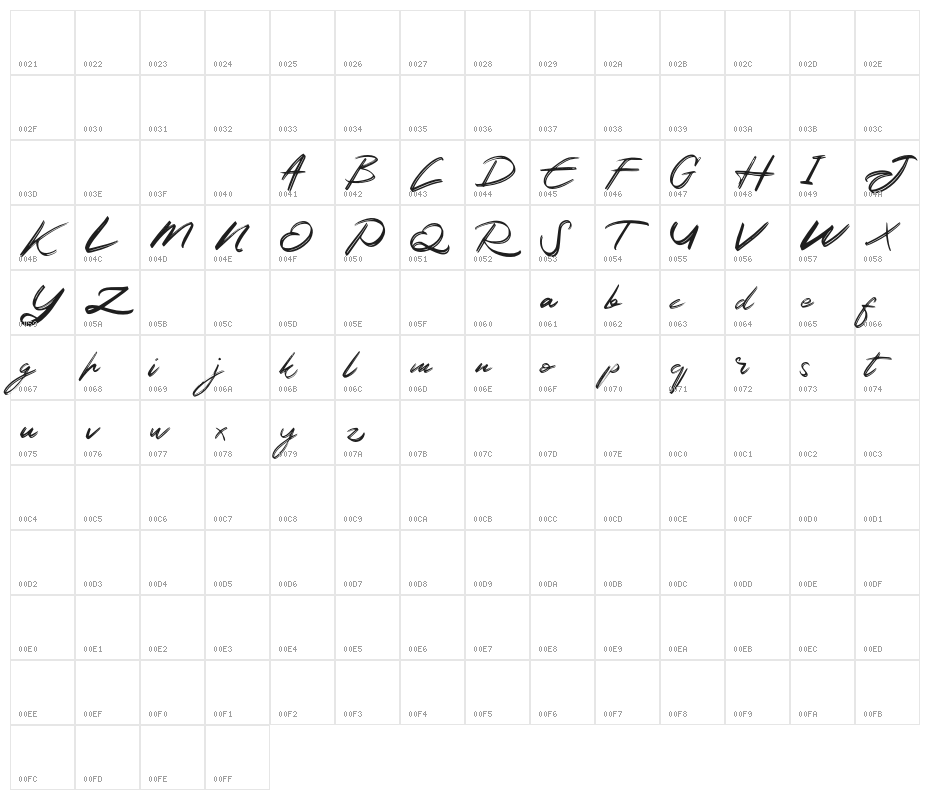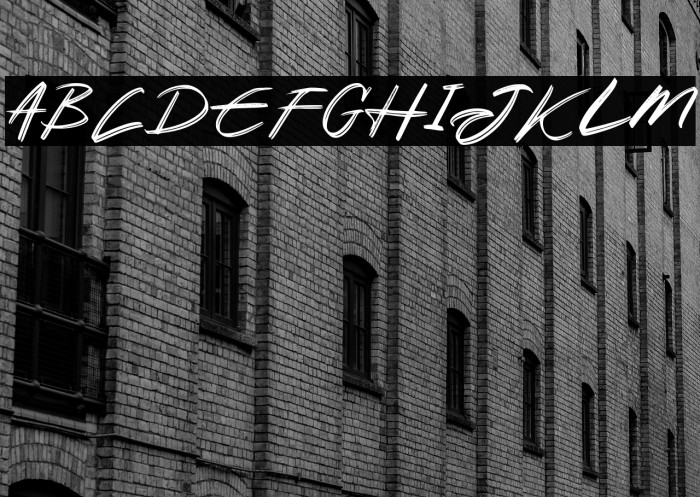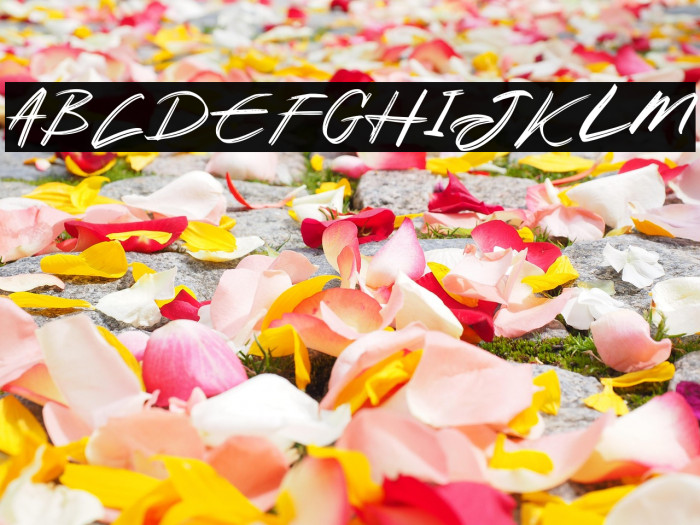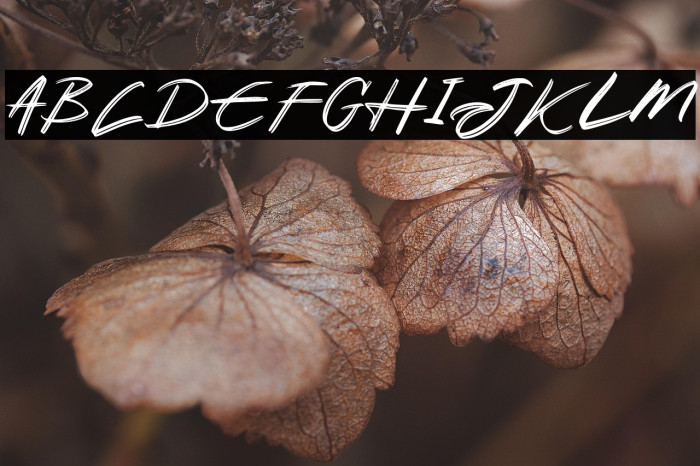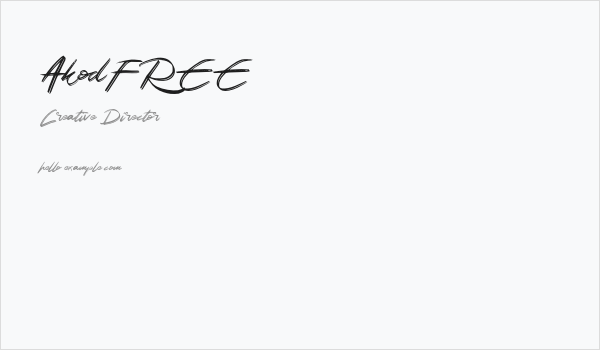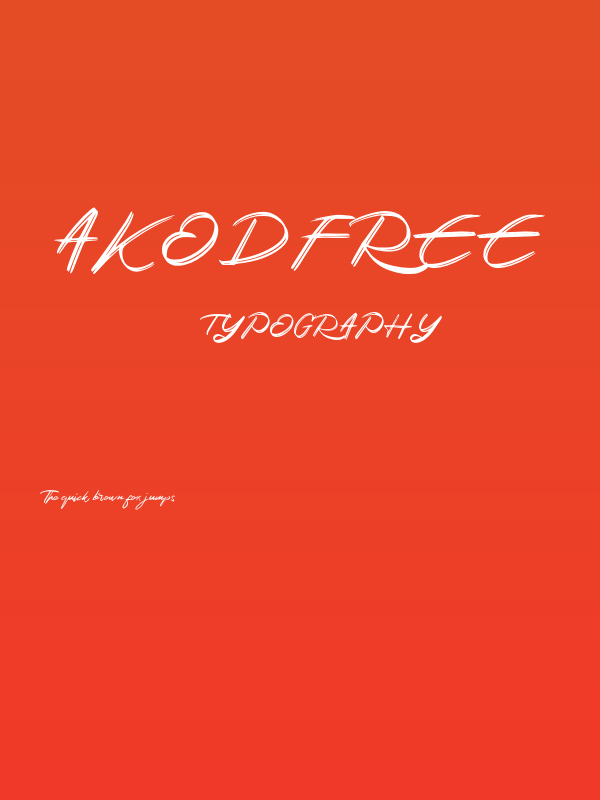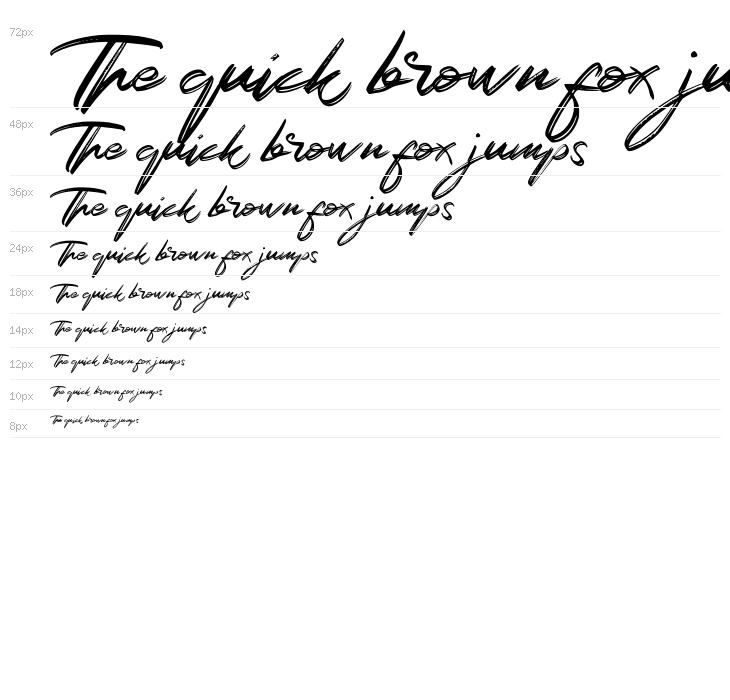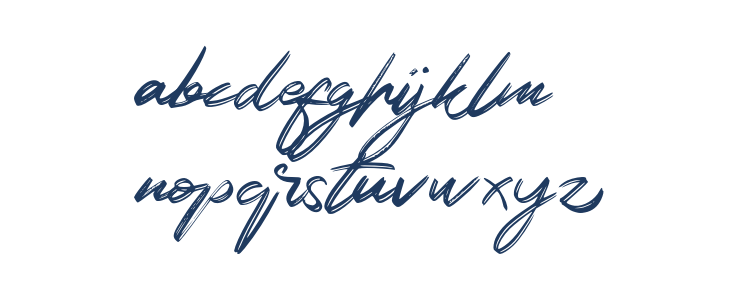
AkodFREE Font
AkodFREE Description
This font exhibits a dynamic and expressive style, characterized by its fluid and cursive strokes. The uppercase letters are bold and slightly slanted, giving a sense of movement and elegance. The lowercase letters maintain a consistent flow, with some characters featuring distinctive loops and swashes that add to the overall artistic flair. The font's design is reminiscent of handwritten calligraphy, with a modern twist that makes it suitable for creative and contemporary projects. The varying stroke thickness adds depth and interest, while the overall structure remains legible and stylish.
| Use Case | Logos, Headlines, Decorative text |
| Proposed Projects | Ideal for wedding invitations, greeting cards, branding projects, and artistic posters. |